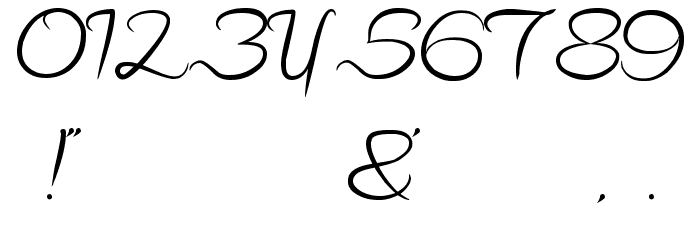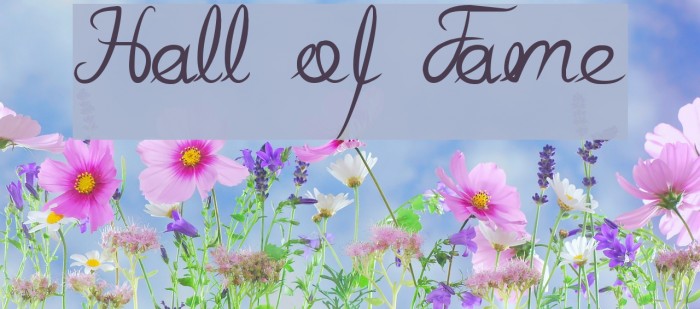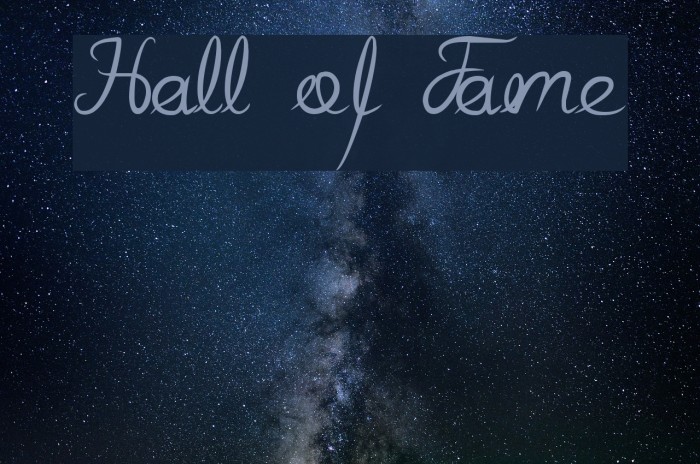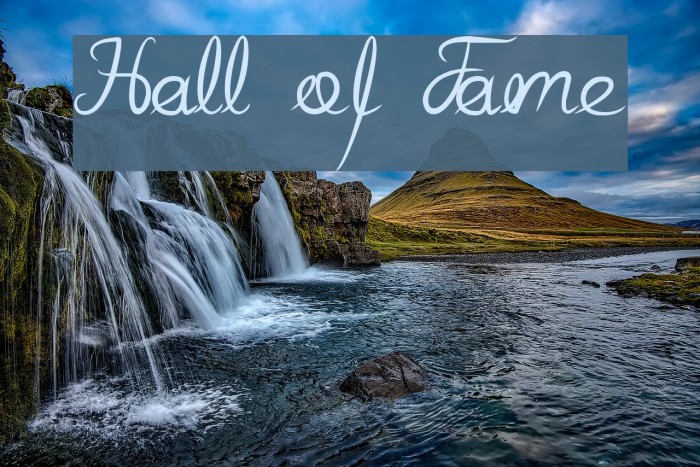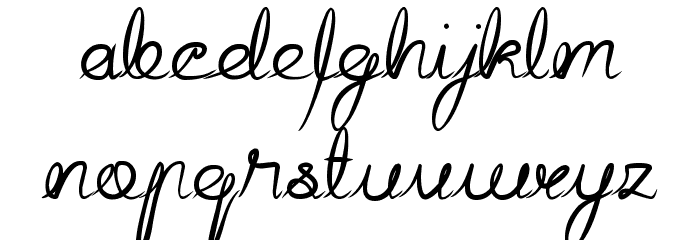
Hall of Fame Font
This font features an elegant and flowing script style, characterized by its smooth, cursive strokes that mimic the fluidity of handwriting. The uppercase letters are slightly more structured, maintaining a consistent height, while the lowercase letters exhibit a charming, informal touch with varied ascenders and descenders. The numerals are distinct and easy to read, complementing the overall aesthetic. Special characters are thoughtfully designed to match the script's elegance, making it suitable for decorative purposes. The font's graceful curves and loops give it a sophisticated yet approachable feel, ideal for projects that require a personal touch.
An elegant, flowing script font with a handwritten style.
• Proposed Projects: Ideal for wedding invitations, greeting cards, personal branding, and elegant logo designs.
• Category: Script
• Contrast: Medium
• Overall Style: Elegant, Handwritten
• Use Case: Logos, Invitations, Decorative text